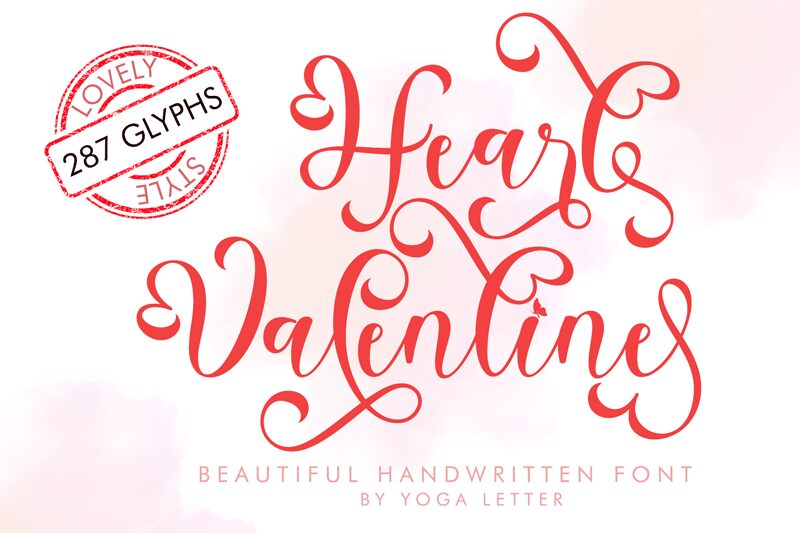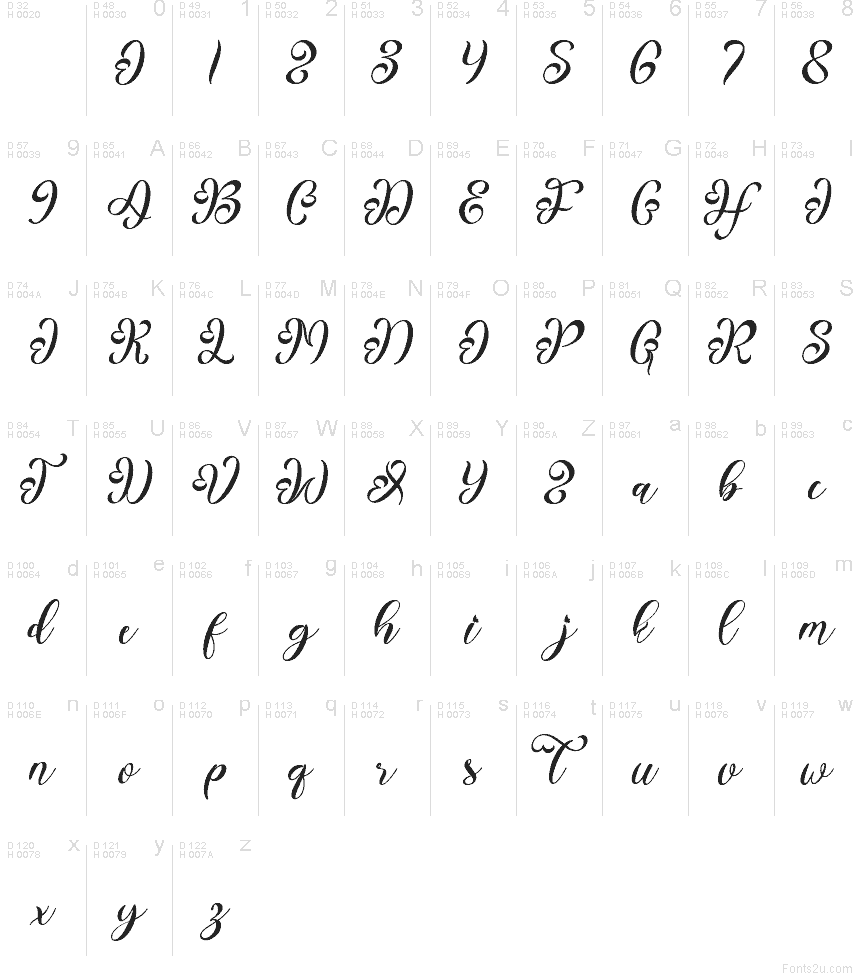
Heart Valentine Italic Demo Italic
Heart Valentine Italic Italic font by Yoga Letter is a free romantic holiday script typeface with swirling, ribbon-like strokes and playful heart details tucked into the curves. The Heart Valentine family feels handwritten yet polished, with fluid connections that make words look like they were penned in one graceful motion. Its inky, sweeping forms bring a soft, intimate mood to anything you set in it.